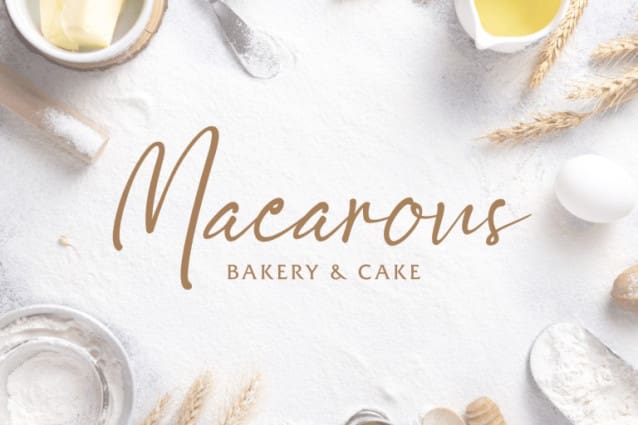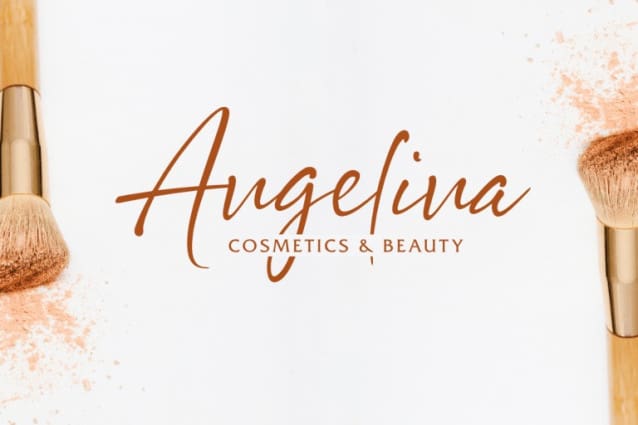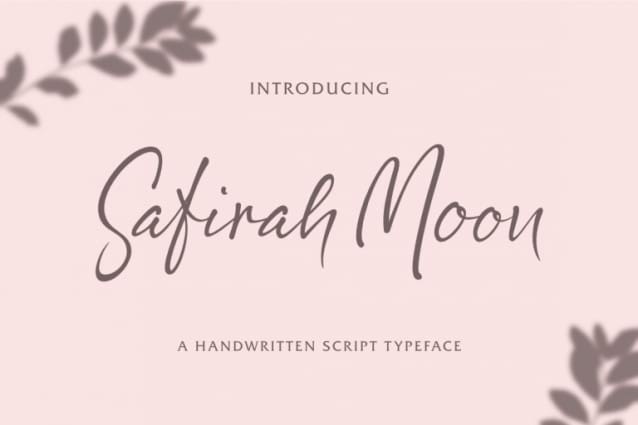
Safirah Moon Font
Safirah Moon Font is a straightforward handwritten font, this font is very beautiful, and is perfect for your design needs, this font is very neat, and uses little nodes
Safirahmoon font, suitable for branding, logos, signatures, t-shirts, magazines, book covers, and many more.